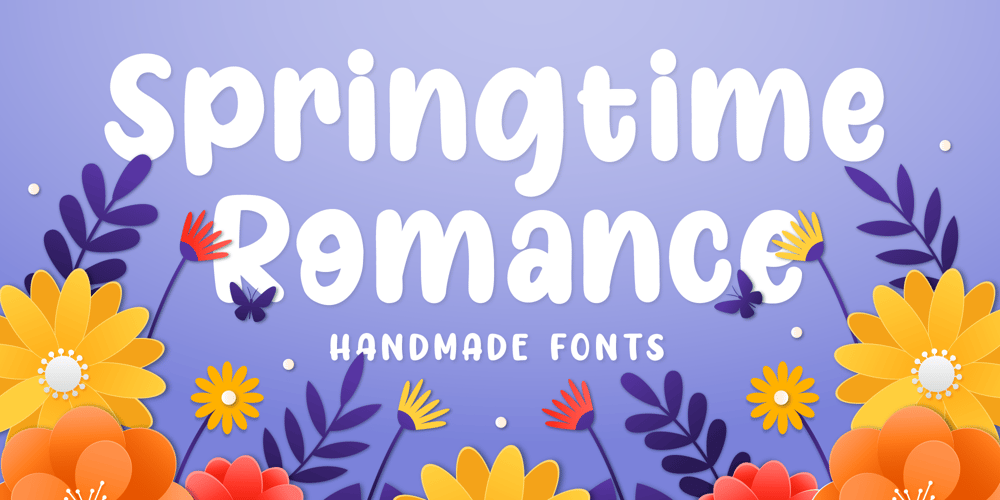
Springtime Romance
Springtime Romance font
Springtime Romance Font Family was designed by Stefie Justprince and published by Crumphand. Springtime Romance contains 1 styles and family package options. Hello, introducing the new hand made fonts”Springtime Romance” Springtime Romance is a great hand made font.Made by marker, make your design looks stunning.What’s Inside The Font ? Uppercase Lowercase Symbols Numerals European Multilinguals Thank You, Regards.